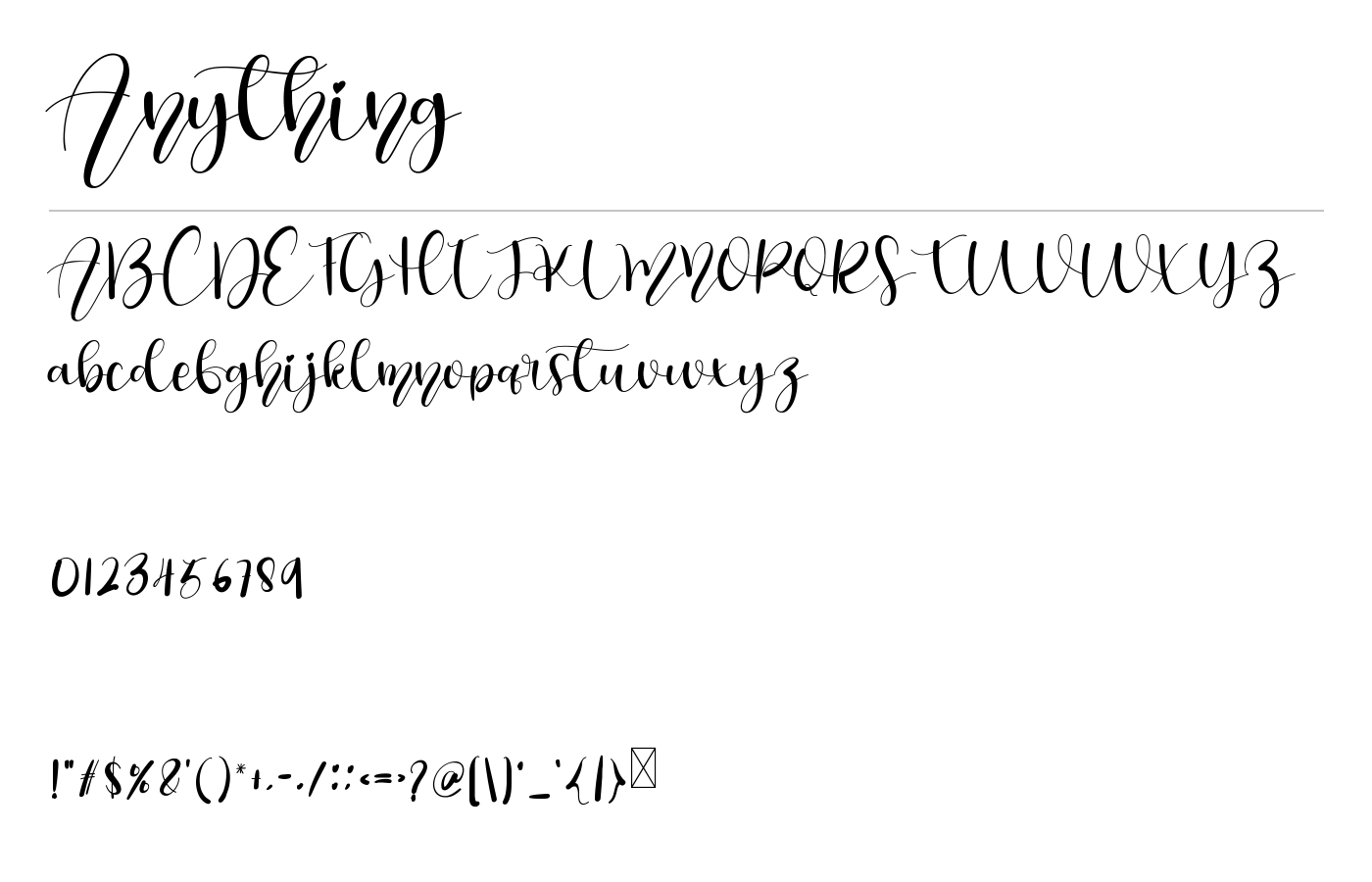
Anything Font is a delicate and elegant script typeface characterized by its flowing, hand-lettered style with graceful curves and playful swashes. Its thin strokes and varying line thickness give it a refined, feminine feel, making it perfect for romantic or creative branding, invitations, and headlines where a personal, artistic touch is desired. This font works beautifully in designs that seek to convey warmth, charm, and sophistication with a modern handwritten flair.
Anything Font